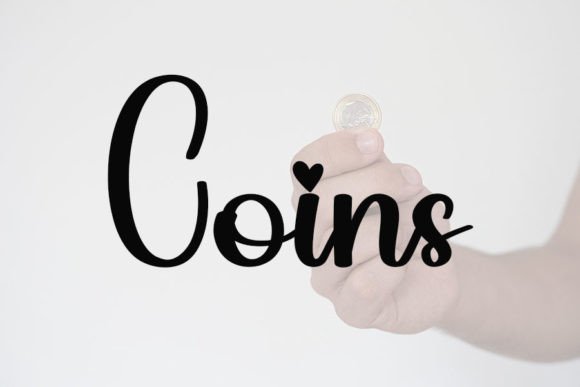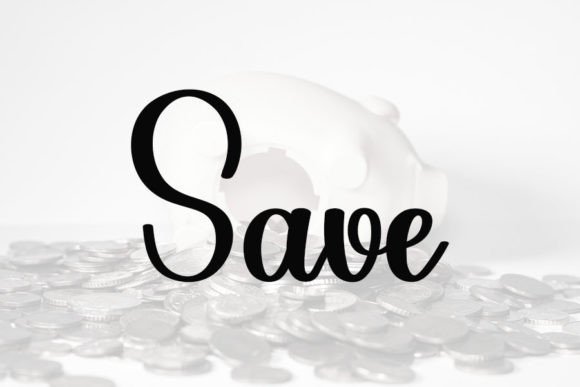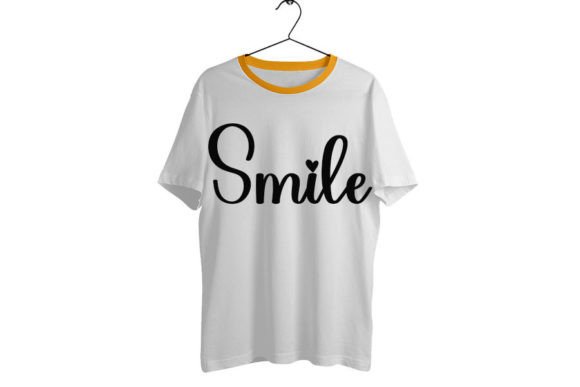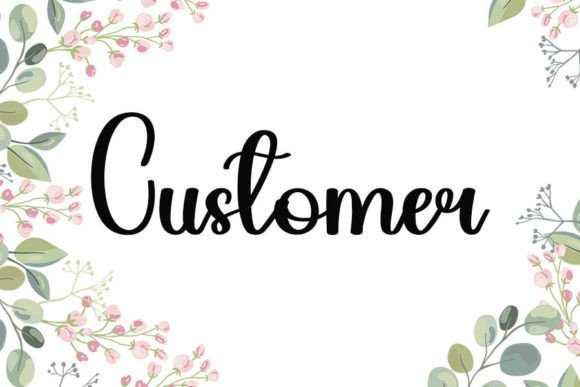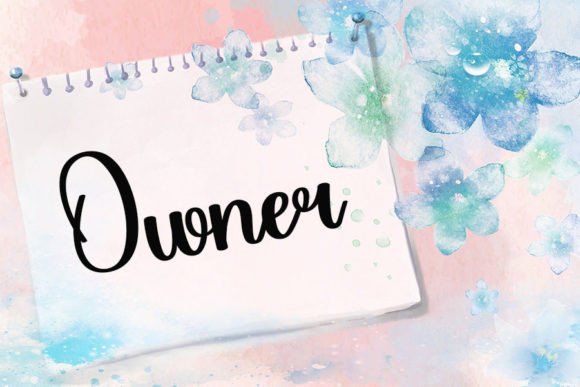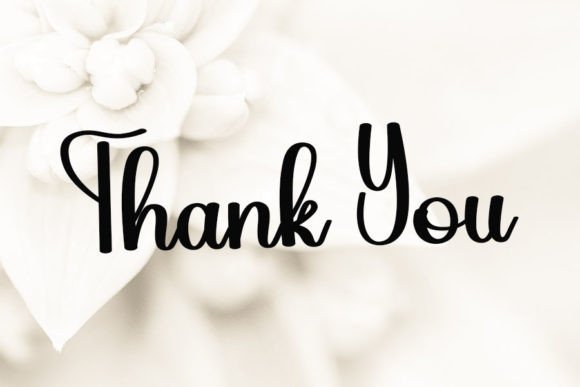
The Budget Font: A Timeless, Handwritten Gem for Your Designs
Have you ever been in the middle of a design project, and suddenly, you’re stuck on finding the perfect font? I recall a recent experience where I was working on a branding project for a boutique client, and I just couldn’t find a font that captured the elegance and sophistication I was looking for. That’s when I stumbled upon the Budget font, and it instantly became my go-to choice. In this article, I’ll share my love for this beautiful handwritten font, its features, and how to make the most of it in your designs.
A Personal Review: What I Love About Budget Font
The Budget font has won my heart with its incredibly distinct and timeless style. Here are some features that I absolutely love:
- ✨ Elegant touch: The font boasts a beautiful, handwritten feel with an elegant touch that’s perfect for a wide range of projects.
- ✅ Unique character: Each letter has a distinct personality, making it stand out from more generic fonts.
- 💫 Versatility: Budget font is suitable for various design applications, from branding and logos to social media graphics and invitations.
While I adore the Budget font, there are a few minor quirks to be aware of:
- 🤔 Limited use in very formal or corporate designs: Due to its elegant, handwritten nature, Budget font might not be the best fit for very formal or corporate projects.
- ⚠️ May require adjustments for longer texts: As with many display fonts, Budget might not be the most readable choice for longer blocks of text.
One of the exciting features of the Budget font is its support for OpenType features, glyphs, and stylistic alternates. These features allow you to add more variety and creativity to your text. Here are some tips on how to access these features:
The Story Behind Budget Font
The Budget font was designed with the intention of creating a beautiful, handwritten font that captures the elegance and sophistication of traditional typography. The designer aimed to create a font that’s both timeless and versatile, perfect for a wide range of design applications.
- Q: What type of projects is Budget font best suited for?
- A: Budget font is perfect for creative projects, such as branding, logos, social media graphics, and invitations.
- Q: Is Budget font available in different weights or styles?
- A: Currently, Budget font is available in a single weight. However, the designer may release additional weights or styles in the future.